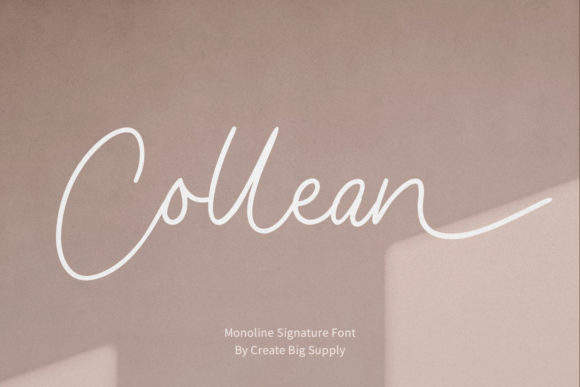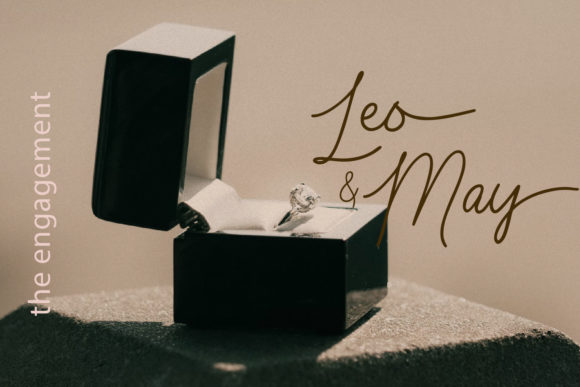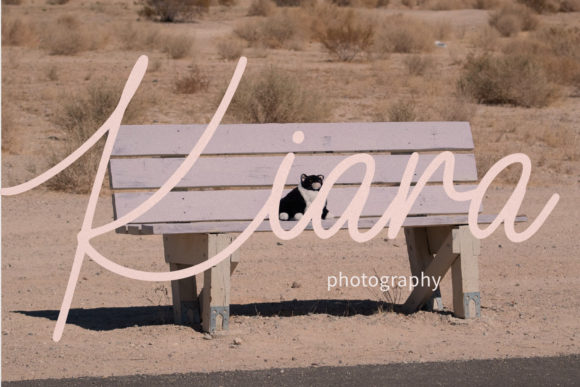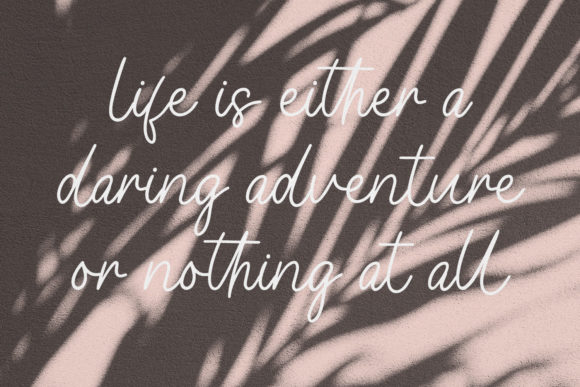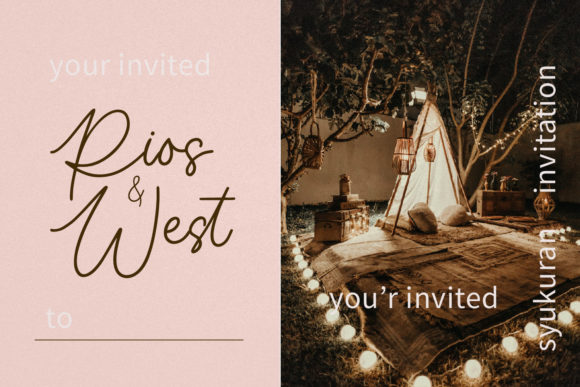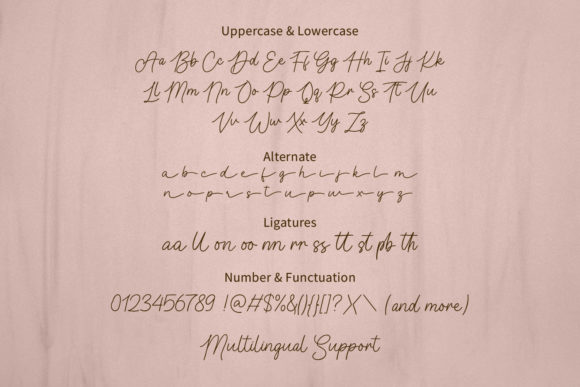
About Collean Font
Collean is a handwritten, monoline-style Signature typeface. Be mesmerized by its beautiful style, and use it to create beautiful wedding invitations, beautiful stationary art, eye-catching social media posts, and more! This font is PUA encoded, which means you can access all the amazing glyphs and ligatures easily